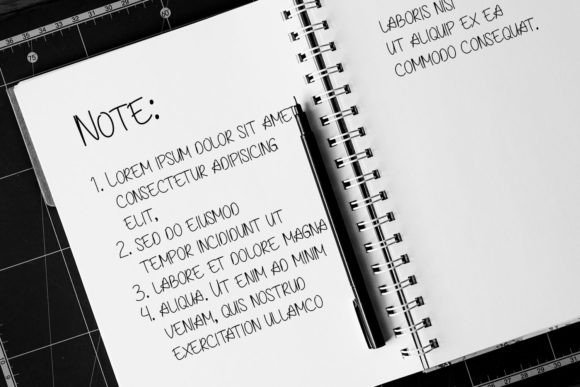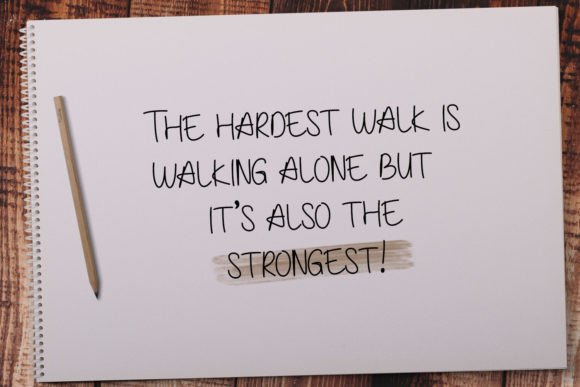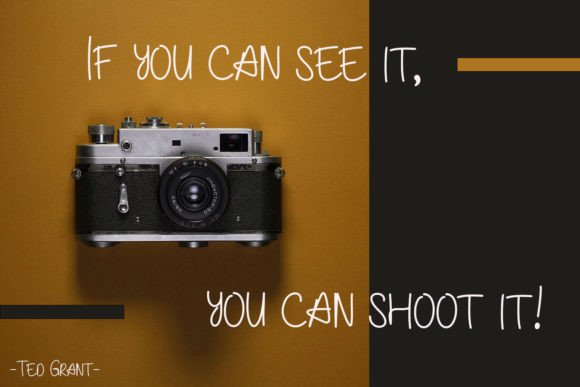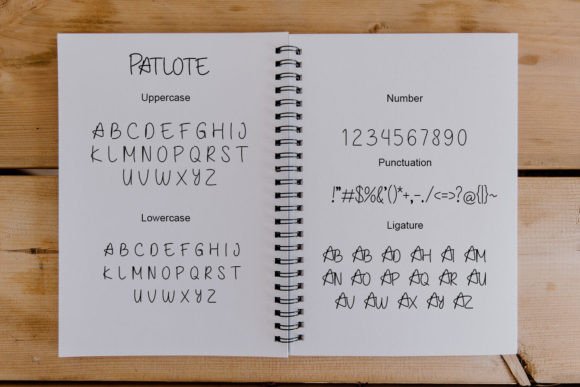
Introduction to Patlote Font
As a designer, have you ever found yourself struggling to convey a personal message or add a touch of whimsy to a creative project? You’re not alone. We’ve all been there, searching for that perfect design resource to elevate our work. That’s where the Patlote Font comes in – a game-changing addition to any designer’s toolkit.
Imagine being able to infuse your designs with a unique, handwritten touch that’s both high-quality and effortlessly cool. With the Patlote Font, you can do just that. This casually styled handwriting font boasts authentic hand-drawn letter designs that break free from rigidity, adding a touch of personality to any project.
From personal invitations to graphic designs, the Patlote Font is the perfect design resource for creatives who crave a little extra flair. And the best part? It’s available for free download, complete with a transparent background for seamless integration into your designs. Get ready to unlock a world of creative possibilities with the Patlote Font.
Key Features of Patlote Font
- High-quality design resource for creative projects, offering a unique and stylish aesthetic.
- Includes a comprehensive character set, covering a wide range of languages and alphabets, making it a versatile design resource.
- Perfect for designers and artists working on creative projects, such as logos, typography, and graphic designs, requiring a high-quality and stylish font.
Honest Review: Patlote Font
As a designer, I’m always on the lookout for high-quality design resources to enhance my creative projects. Recently, I stumbled upon the Patlote Font, and I’m excited to share my honest review with you.
- ✨ Unique and playful characters that add a touch of whimsy to any design
- ✨ Perfect for creating eye-catching headings and titles
- ⚠️ Limited font sizes and styles, which may not be suitable for complex or long-form content
- ⚠️ May not be suitable for professional or corporate branding due to its playful nature
Overall, I’m impressed with the Patlote Font. It’s a great design resource for designers looking to add a touch of creativity to their projects. While it may have its limitations, it’s a high-quality font that’s definitely worth considering for your next design project.
The Patlote Font is versatile and can be used in a variety of creative projects, including logos, brochures, business cards, and social media graphics. Its high-quality design and transparent background make it an excellent choice for designers looking for a reliable design resource.
To get the most out of the Patlote Font, experiment with different font sizes, colors, and styles. You can also combine the font with other design elements, such as images and graphics, to create a visually appealing design.